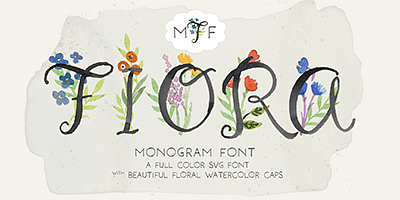
Fiora Monograms Font Free Download is an elegant and ornate monogram typeface that adds a sophisticated and classic touch to your designs. Perfect for wedding invitations, luxury branding, personalized stationery, and elegant logos, Fiora Monograms features intricate letterforms and flourishes that bring a refined, decorative quality to your work.
Designed with careful attention to detail, this font combines timeless elegance with high readability, making it ideal for monogramming or any project that requires a touch of luxury. It works seamlessly with design software like Adobe Illustrator, Photoshop, Canva, and more, making it easy to add a personal, refined touch to your creative projects.